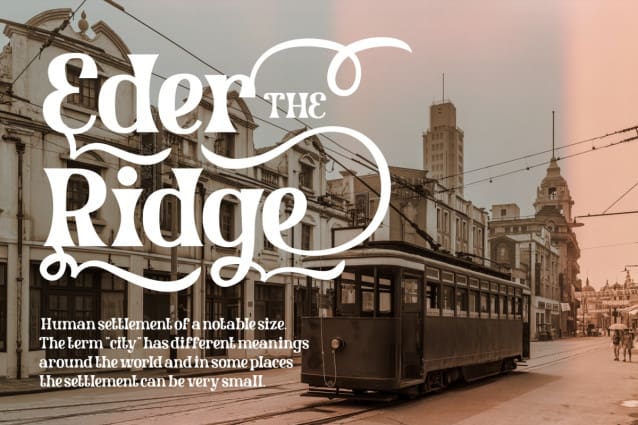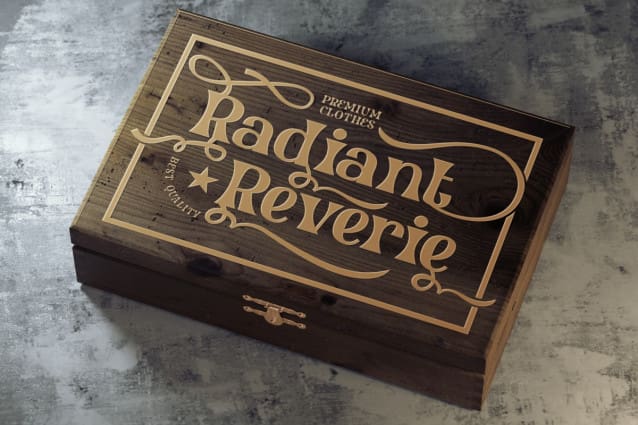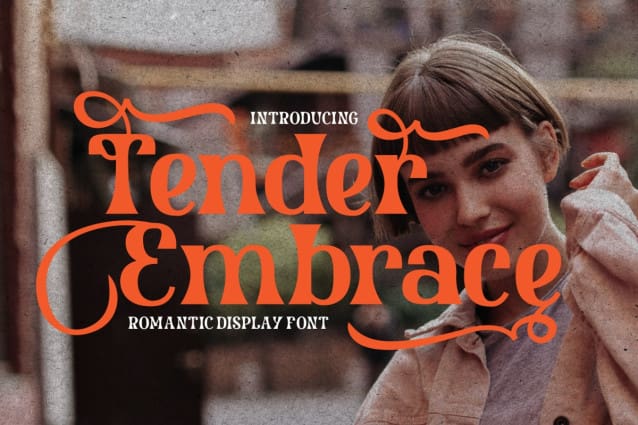
Tender Embrace Font
Tender Embrace Font, a romantic display font that speaks the language of love. With its graceful curves and sophisticated form, Tender Embrace is the perfect match for those seeking to infuse their designs with warmth and charm. Whether it’s for a logo that needs to resonate with the heart, branding that tells a story of passion, or an invitation that calls out to the soul, this font wraps your words in a soft, loving touch.
Crafted for versatility, Tender Embrace shines across various mediums – from the tactile feel of packaging to the visual allure of posters. It’s not just a font; it’s a statement of elegance for titles, a whisper of romance for business cards, and a giggle of joy for children’s books. For magazine layouts or any design connected to the theme of fonts, Tender Embrace adds a personal, human touch that turns the ordinary into something memorable.